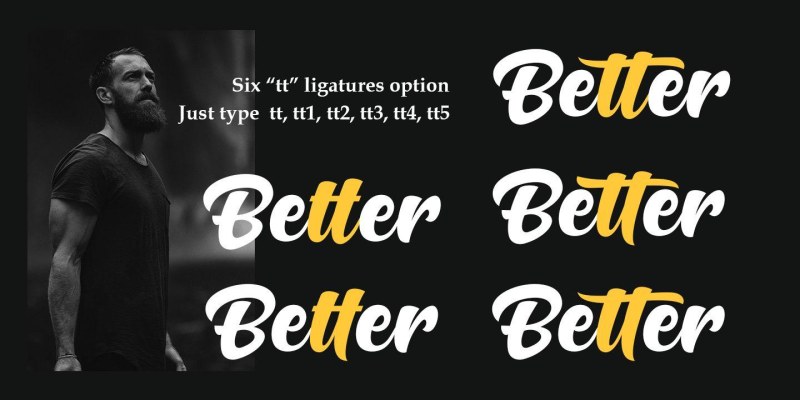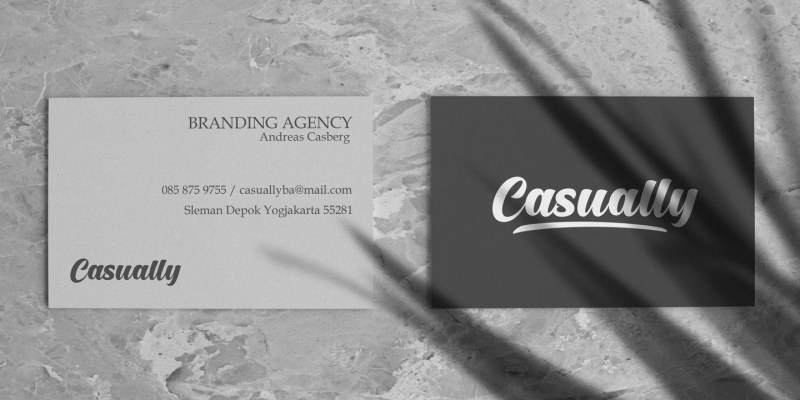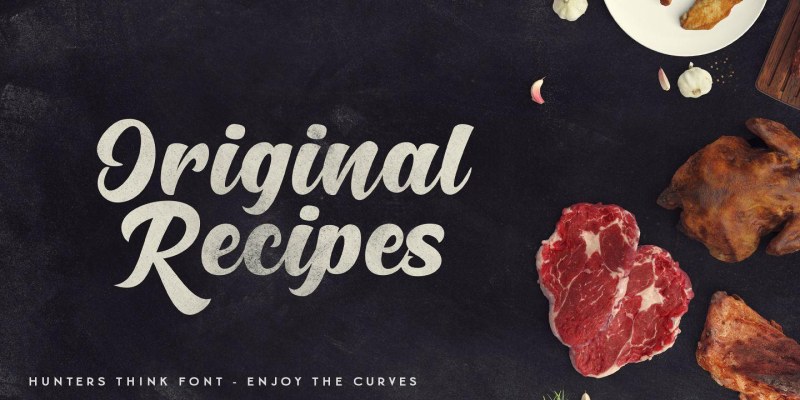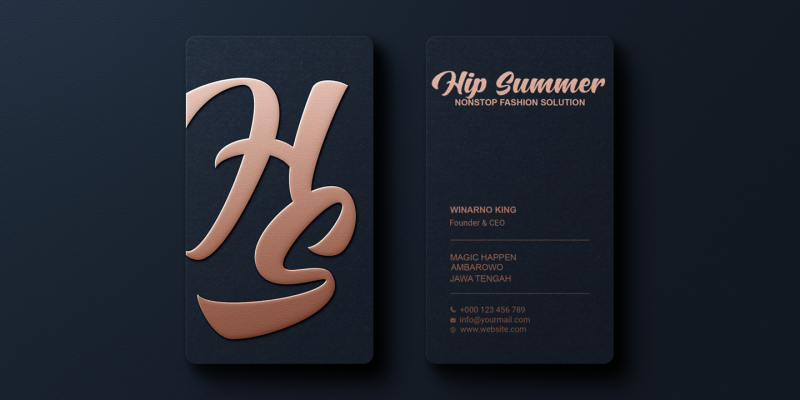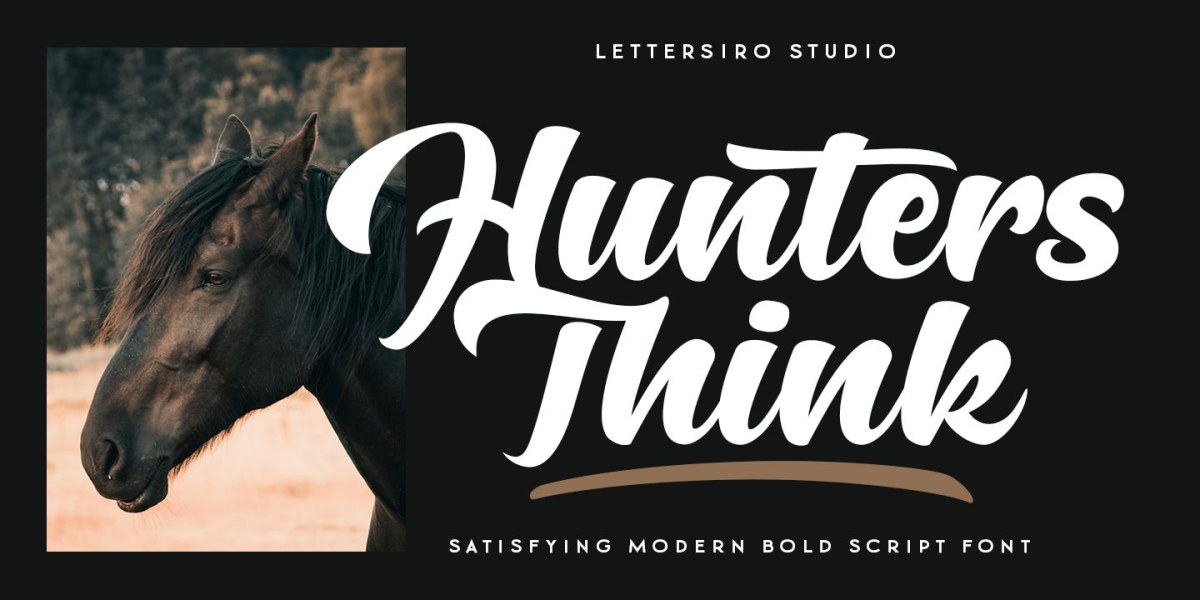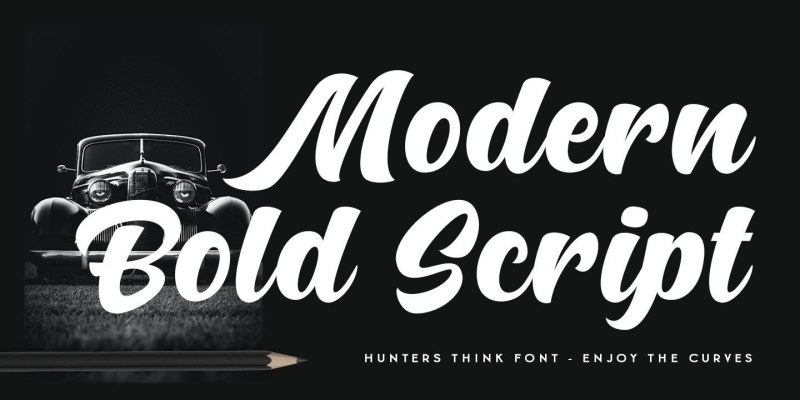
Hunters Think Font
Hunters Think is a modern bold script font. Made carefully to get the best curves and unique form that never existed before. Hunters Think is Suitable for any graphic de…
Hunters Think is a modern bold script font. Made carefully to get the best curves and unique form that never existed before. Hunters Think is Suitable for any graphic designs such as branding materials, t-shirt, print, business cards, logo, poster, t-shirt, photography, quotes .etc.
Where Hunters Think Font works best
Hunters Think Font brings a personal, handwritten warmth to invitations, menus and place cards.
Craft brands — coffee, cosmetics, bakery — use scripts like Hunters Think Font for signature-style logos and labels.
Pair Hunters Think Font with a plain sans for quotes, stories and Pinterest pins that feel handmade.
What is Hunters Think Font good for?
Hunters Think Font is a Script And Handwritten typeface tagged Bold, Branding, Modern, Poster. It works well for headlines, logos, posters, social media graphics and branding projects that need a distinctive script and handwritten look.